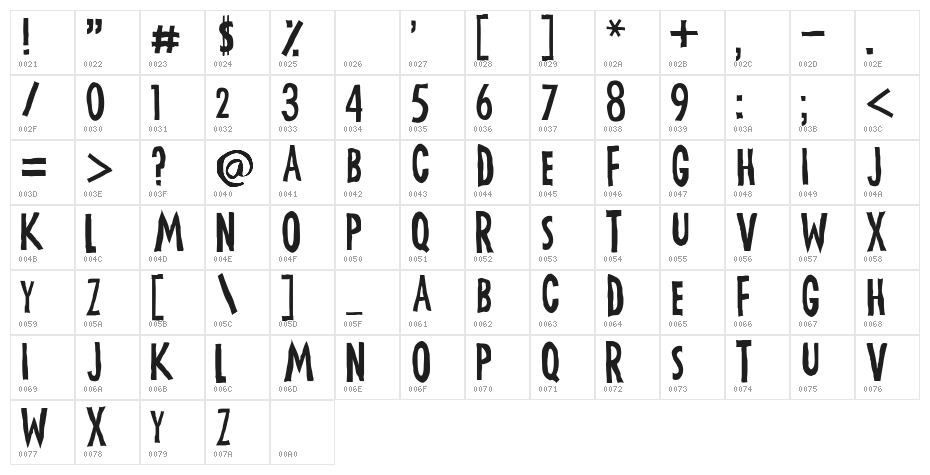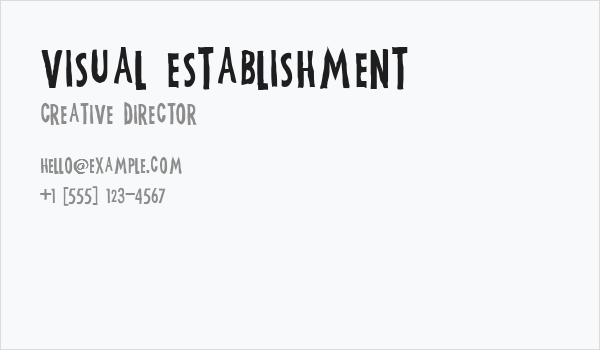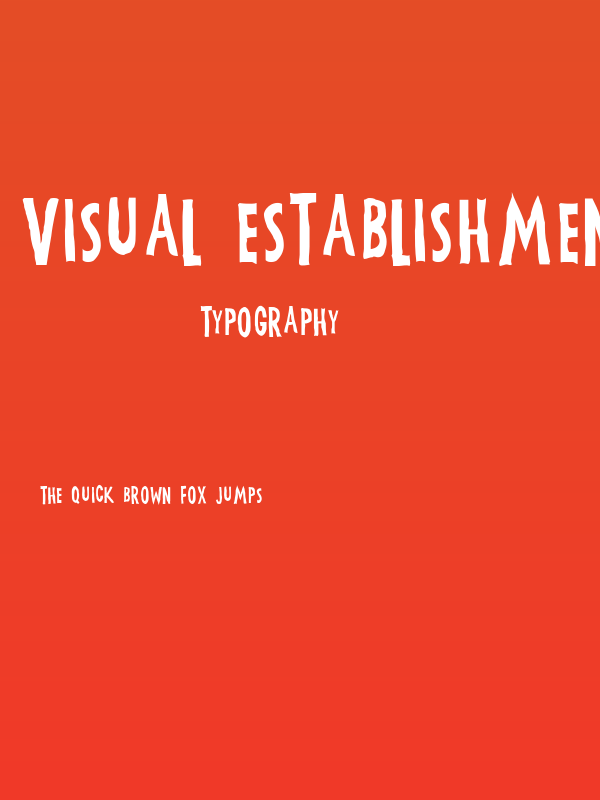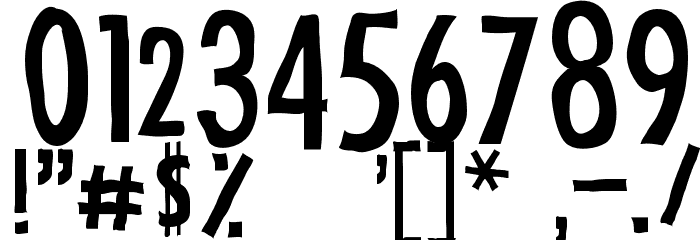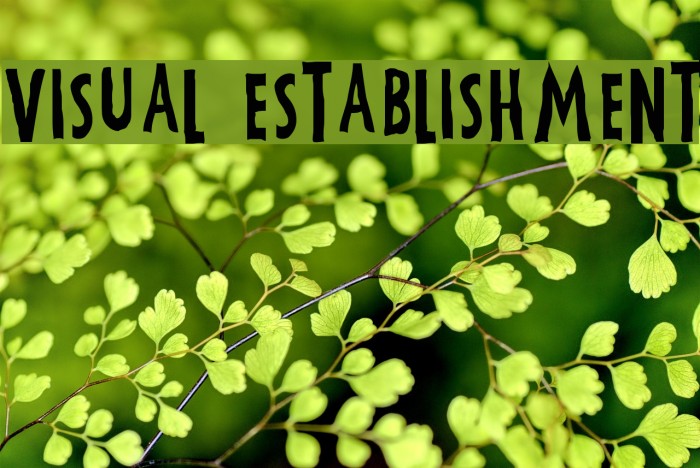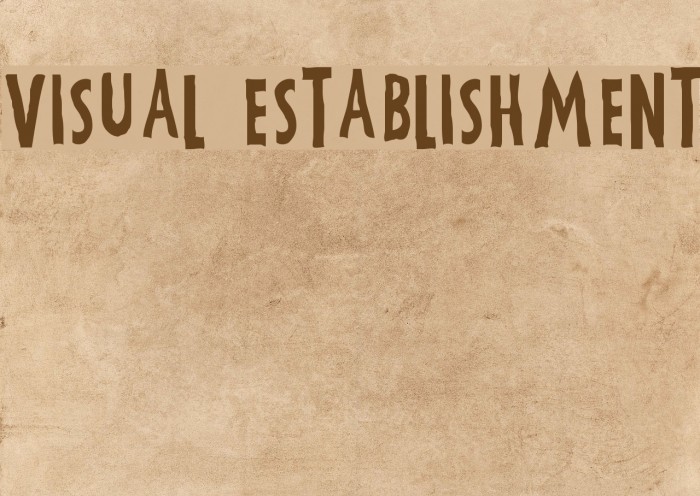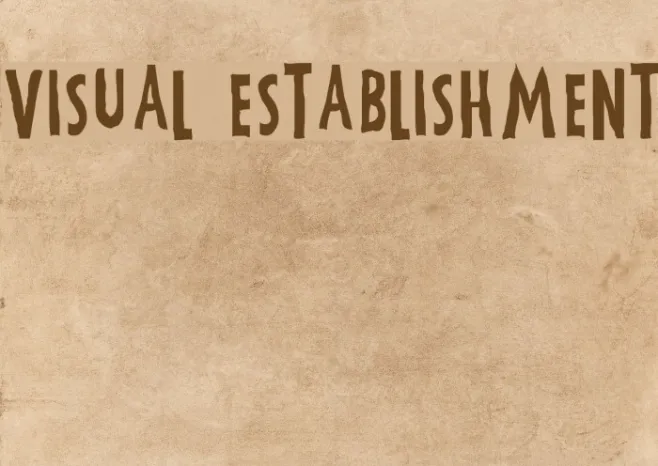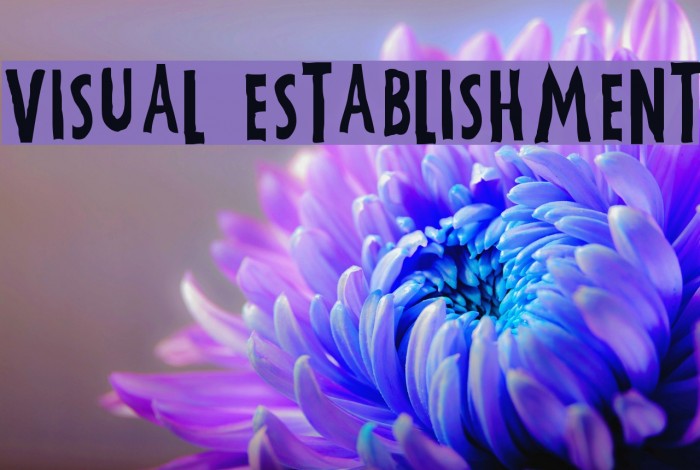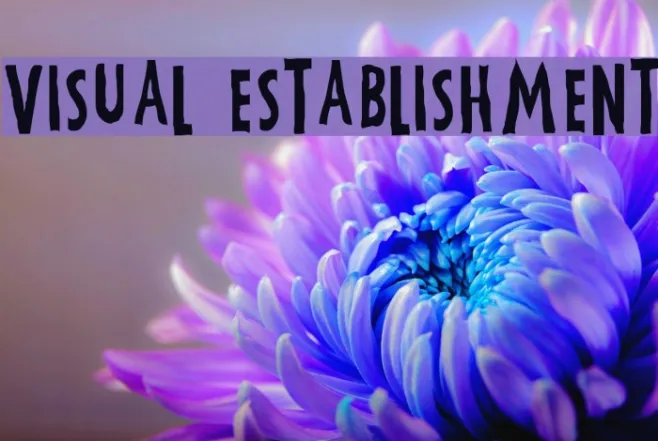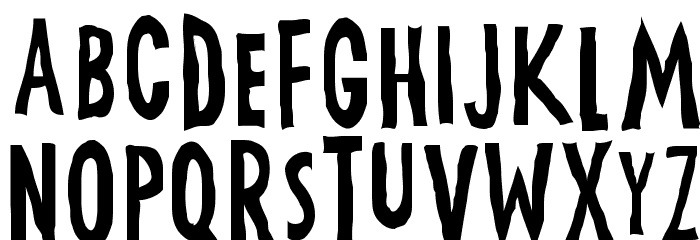
Visual Establishment Font
Visual Establishment Description
This font features a bold and dynamic style with irregular, hand-drawn characteristics. The uppercase letters are tall and slightly narrow, with varying stroke thickness that adds a sense of movement and energy. The lowercase letters maintain this lively appearance, offering a playful yet legible look. Numbers are consistent with the letterforms, showcasing a quirky and artistic flair. Special characters are creatively designed, enhancing the font's unique personality. This font is ideal for projects that require a touch of creativity and individuality, making it perfect for eye-catching headlines, posters, and artistic designs.
| Use Case | Headlines, Posters, Artistic Designs |
| Proposed Projects | Ideal for posters, artistic designs, and eye-catching headlines. |